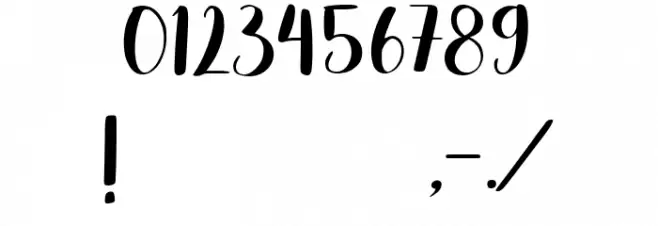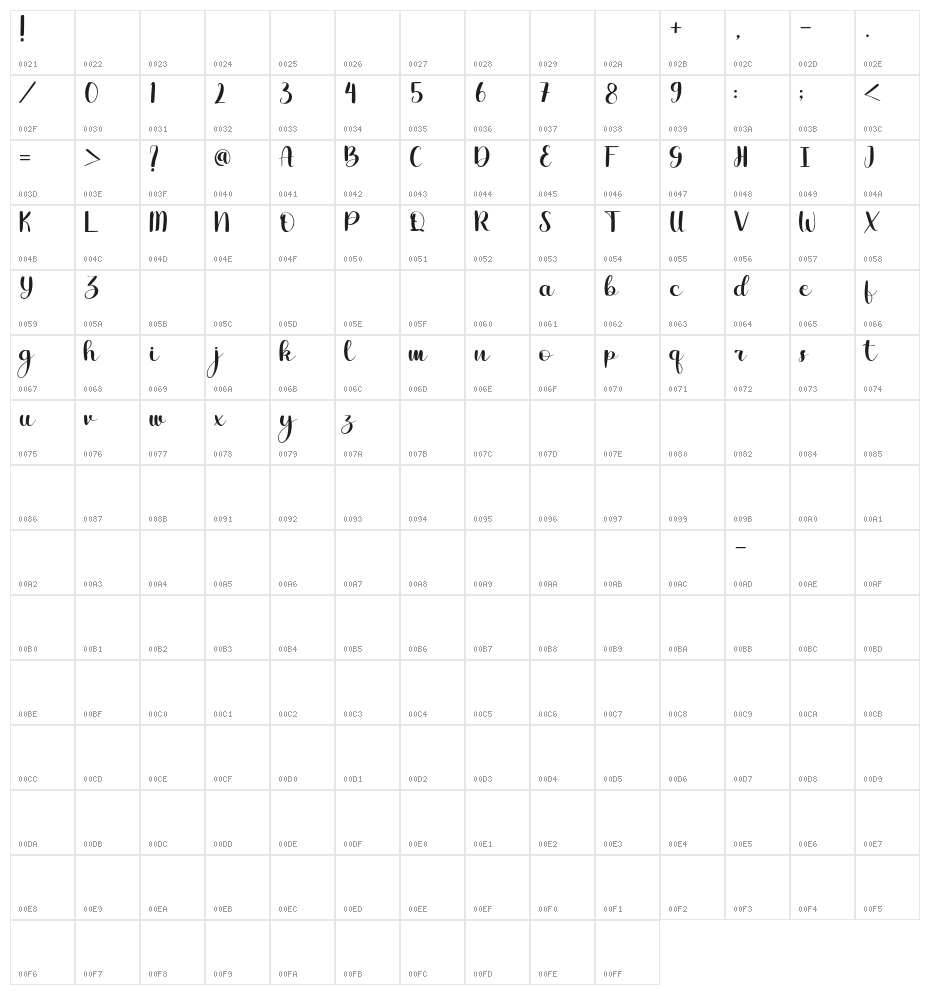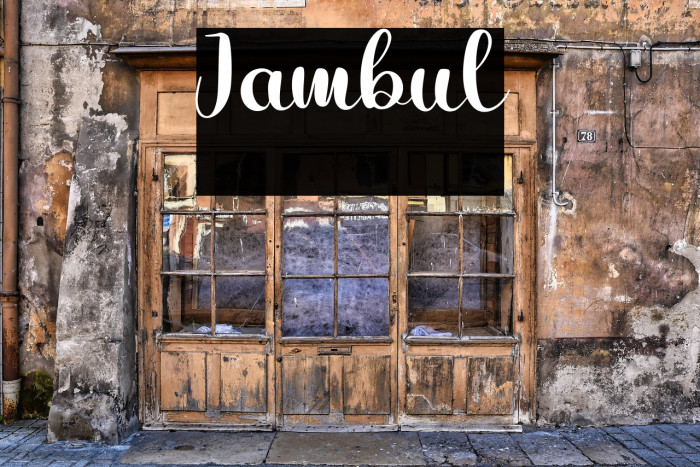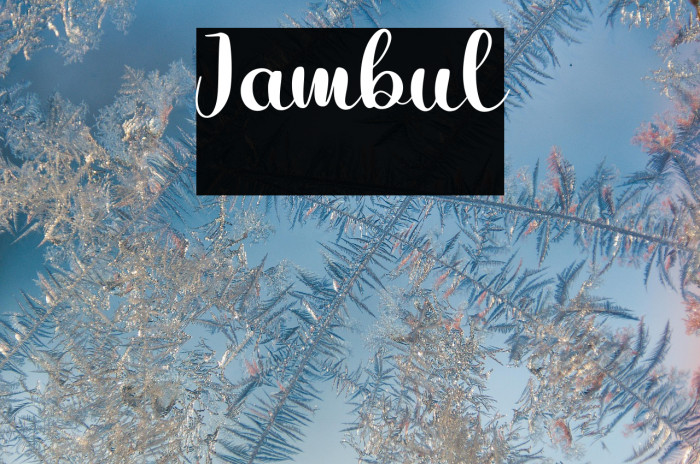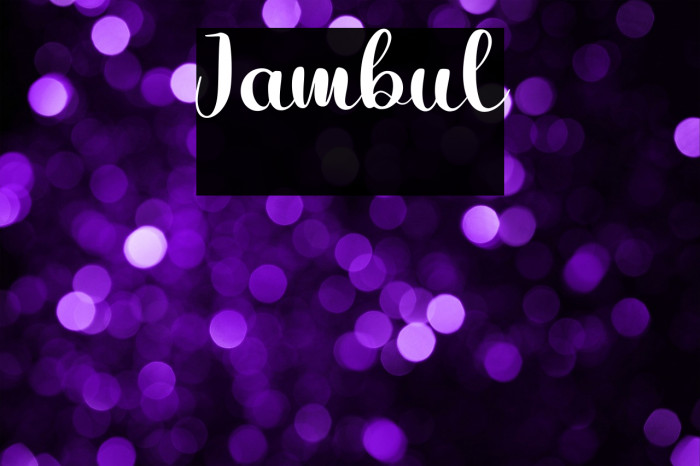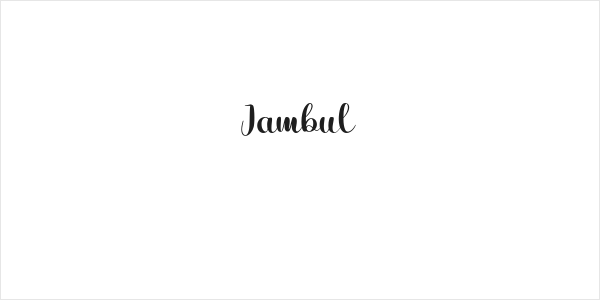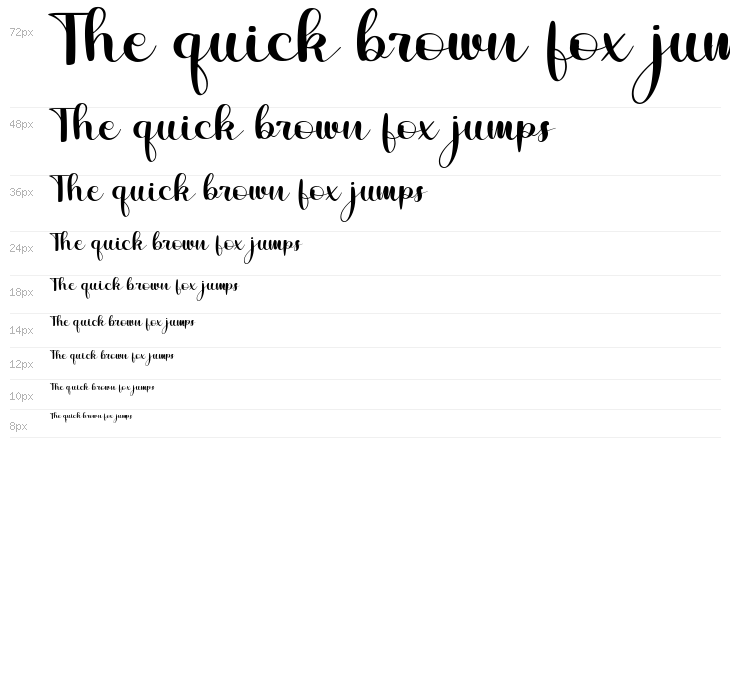
Jambul Font
Jambul Description
This font features a playful and elegant script style with a modern twist. The uppercase letters are bold and expressive, with a slight slant that adds a dynamic feel. The lowercase letters are more fluid and connected, showcasing a beautiful cursive flow. Numbers are consistent with the overall style, maintaining the same boldness and elegance. Special characters are creatively designed, fitting seamlessly with the rest of the font. The overall appearance is both sophisticated and approachable, making it versatile for various design needs.
| Proposed Projects | Ideal for wedding invitations, greeting cards, branding, and social media graphics. |